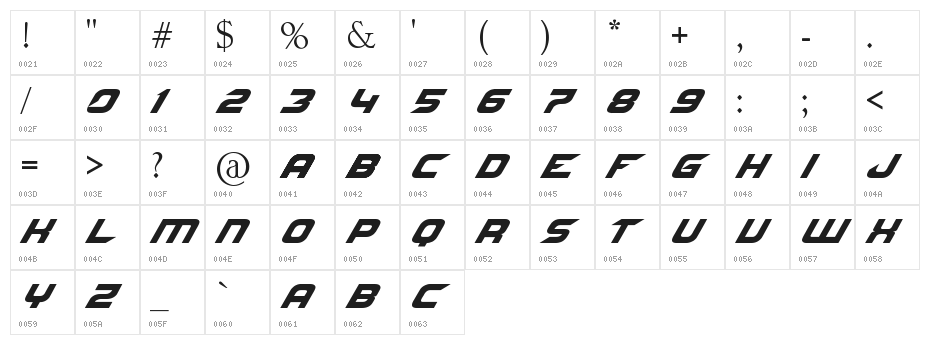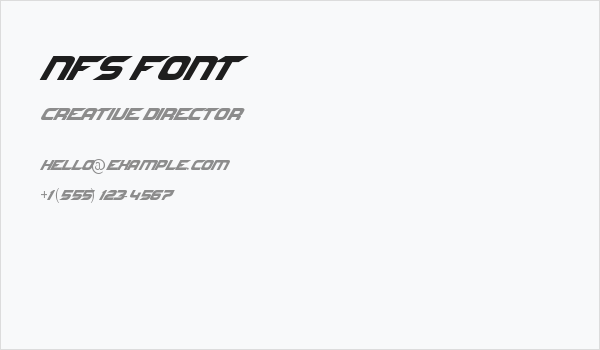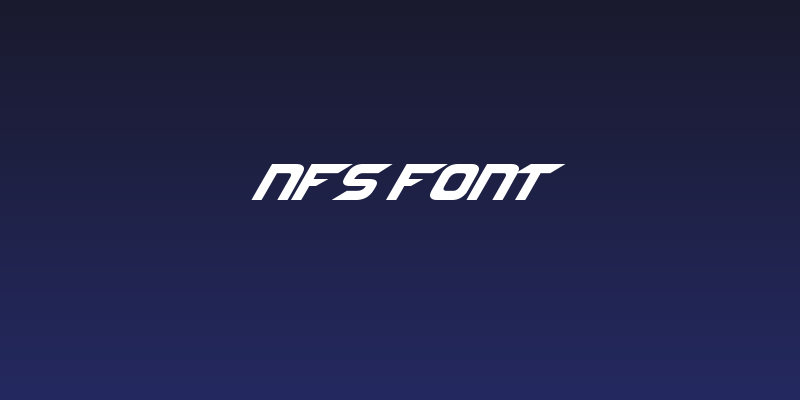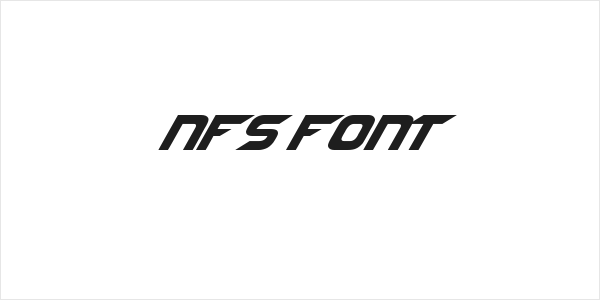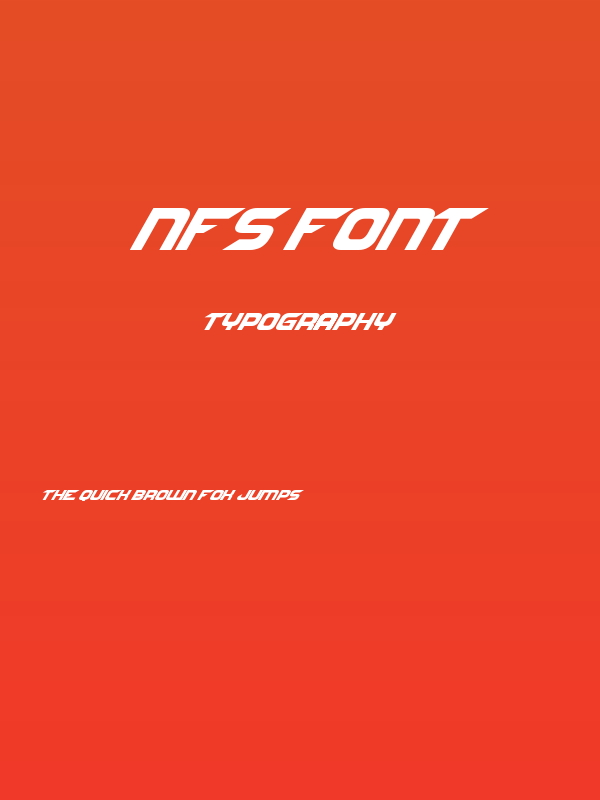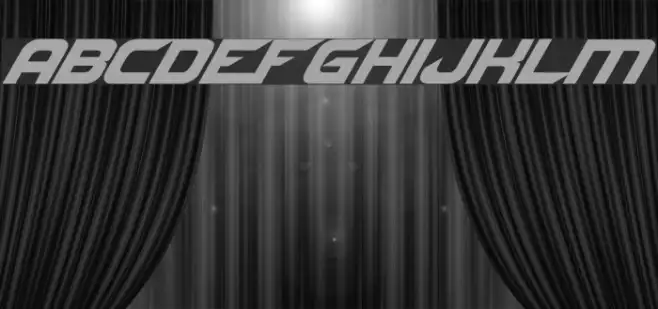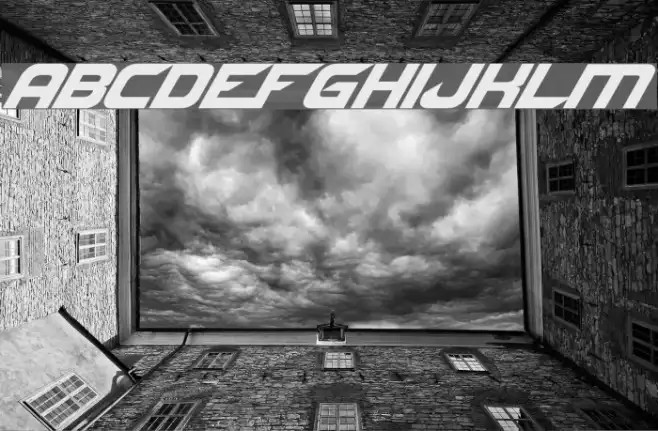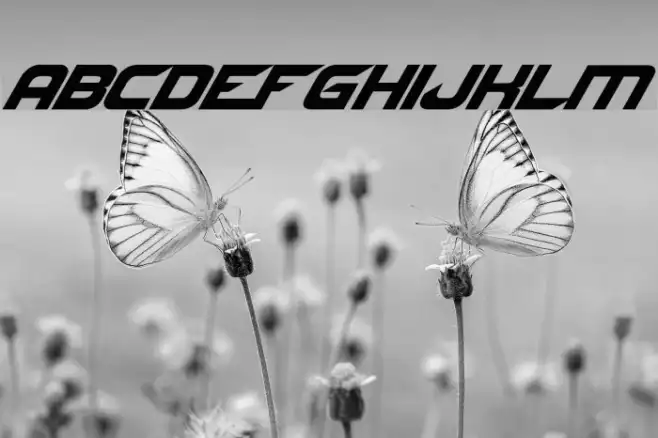
NFS font Font
NFS font Description
This font features a dynamic and modern design with a strong emphasis on angular lines and a forward-leaning stance, giving it a sense of motion and speed. The characters are bold and impactful, with a consistent stroke width that enhances readability while maintaining a sleek appearance. The uppercase letters are particularly striking, with sharp edges and a futuristic style that makes them stand out. The numerals and special characters follow the same design principles, ensuring a cohesive look across all text elements. This font is ideal for projects that require a bold and modern aesthetic.
| Use Case | Logos, Headlines, Branding |
| Proposed Projects | Ideal for branding, sports team logos, automotive designs, and technology-related projects. |